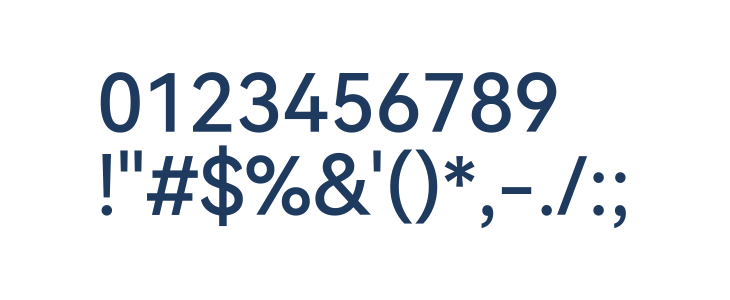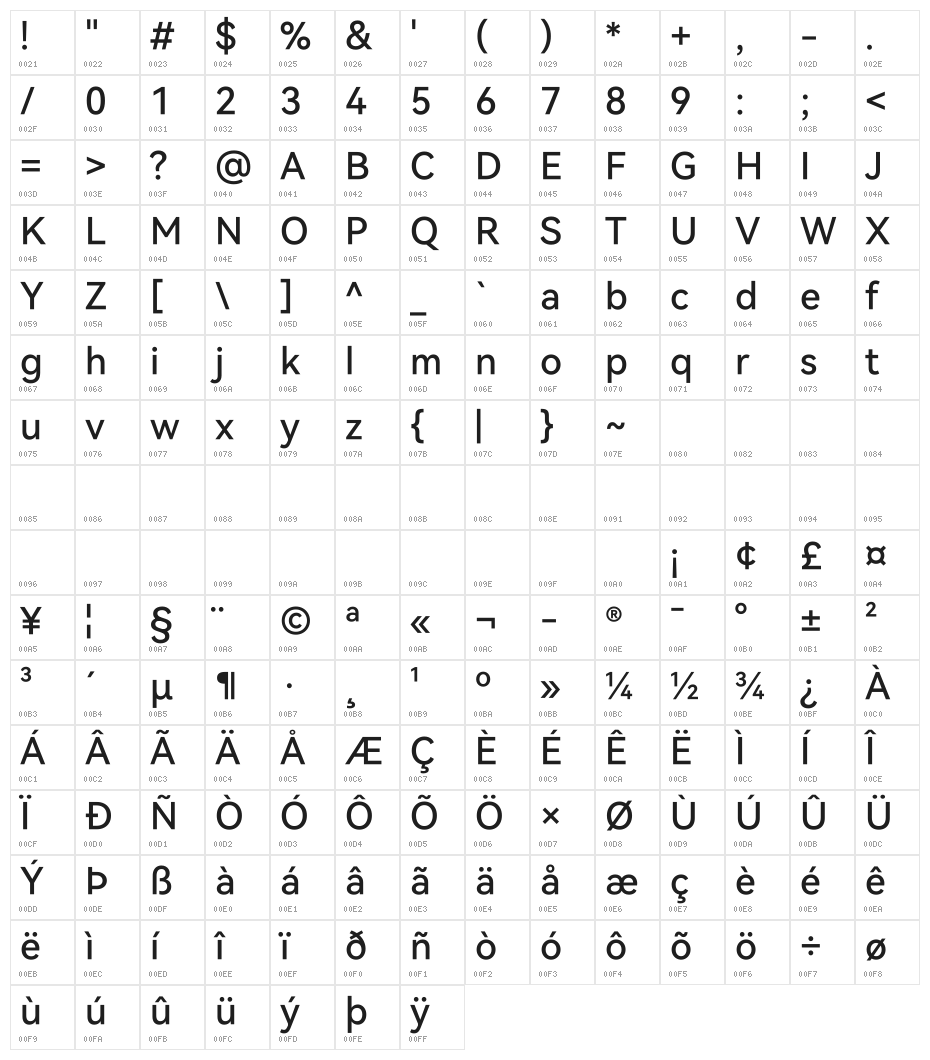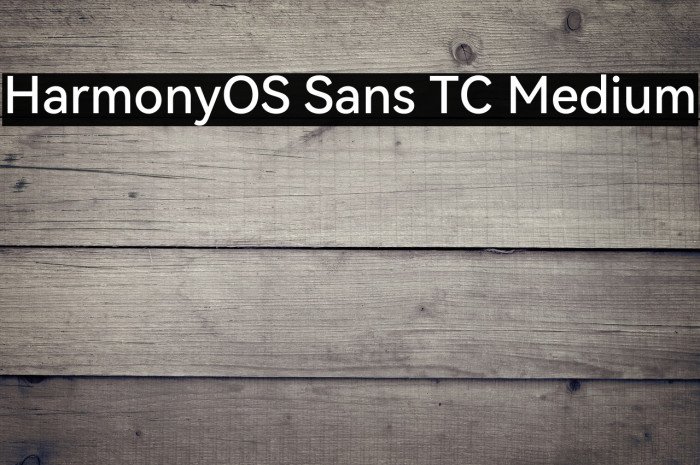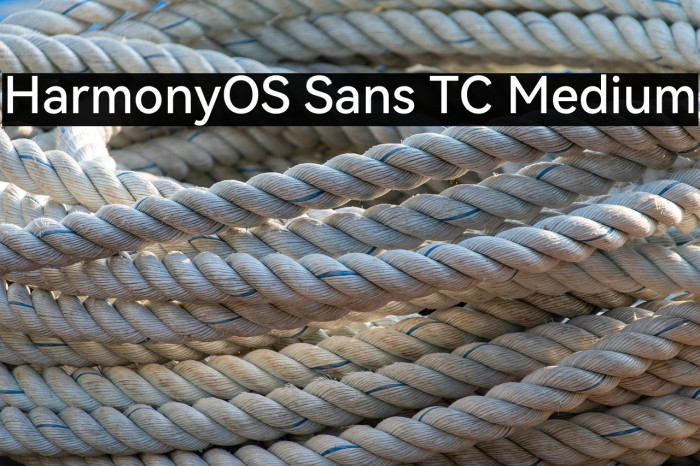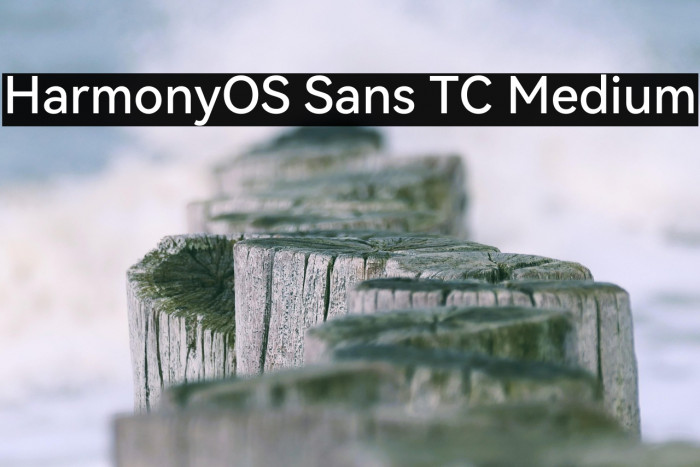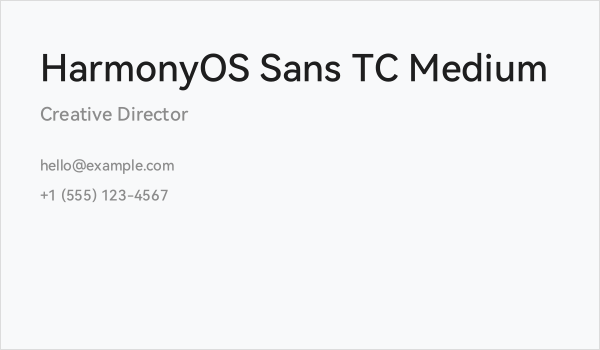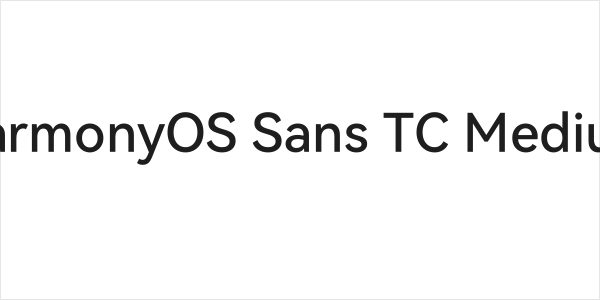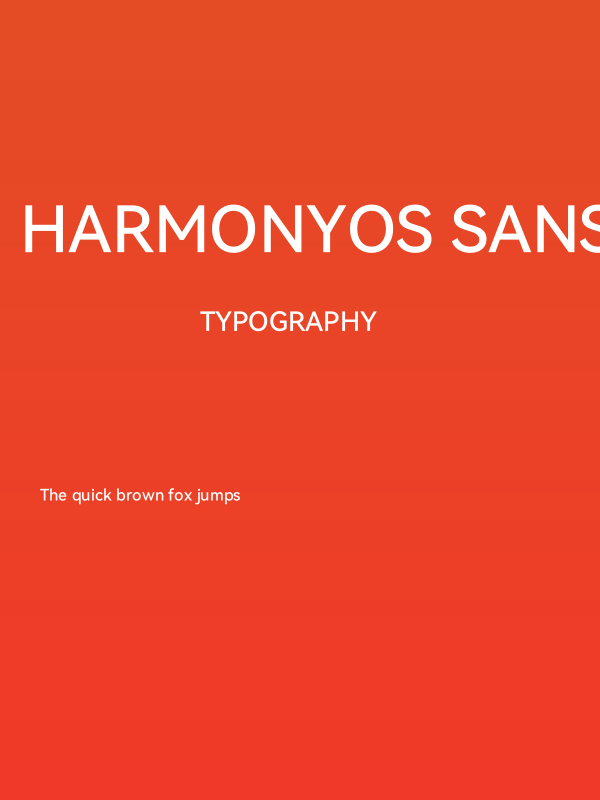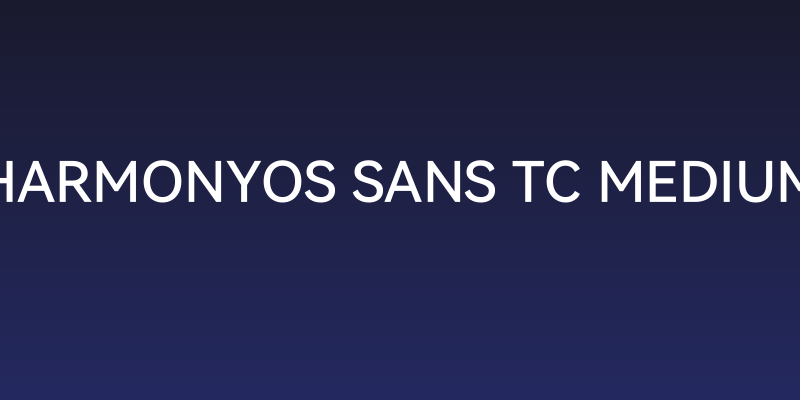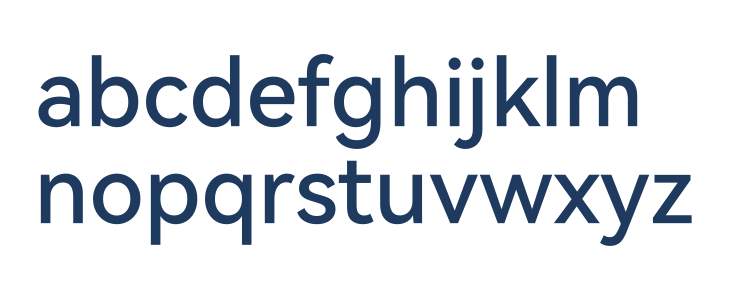
HarmonyOS Sans TC Medium Font
HarmonyOS Sans TC Medium Description
This typeface presents a clean and modern aesthetic, characterized by its sans-serif design. The letters are evenly spaced, providing a balanced and harmonious appearance. The uppercase and lowercase letters maintain a consistent height and width, contributing to its readability. The numerals are clear and distinct, making them easily distinguishable. Special characters are well-defined, ensuring versatility in various applications. The overall design is straightforward yet elegant, suitable for a wide range of digital and print media.
| Proposed Projects | Ideal for user interfaces, websites, corporate branding, and digital content where clarity and modernity are essential. |